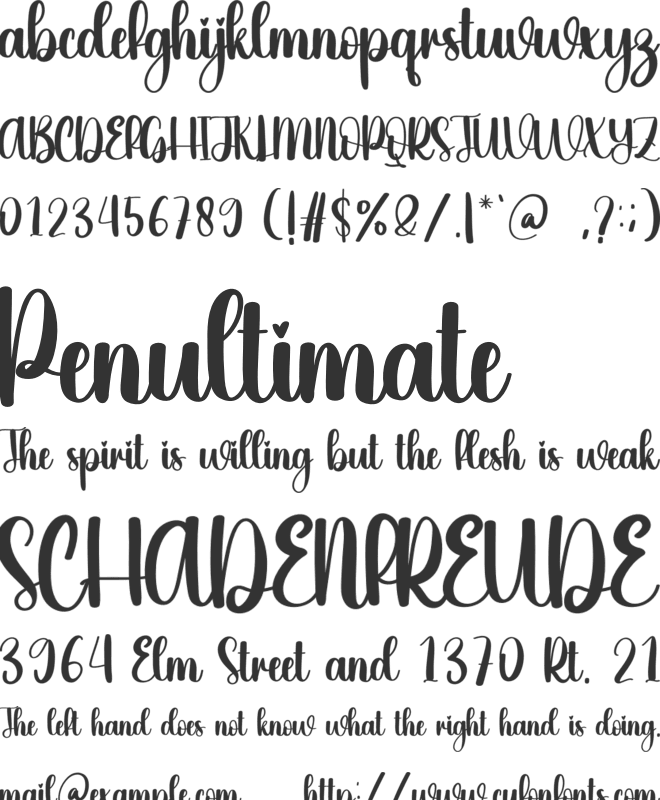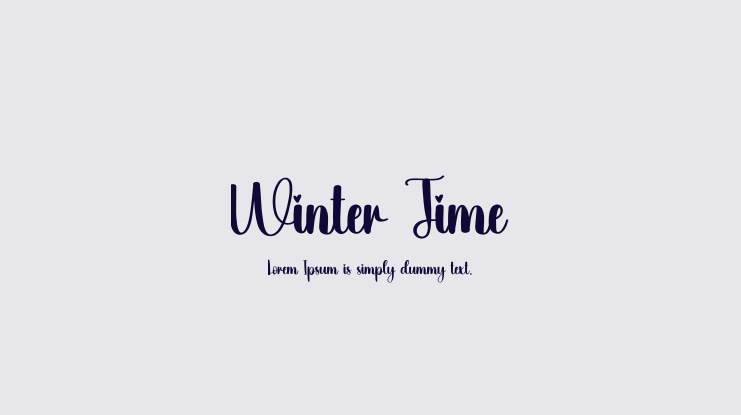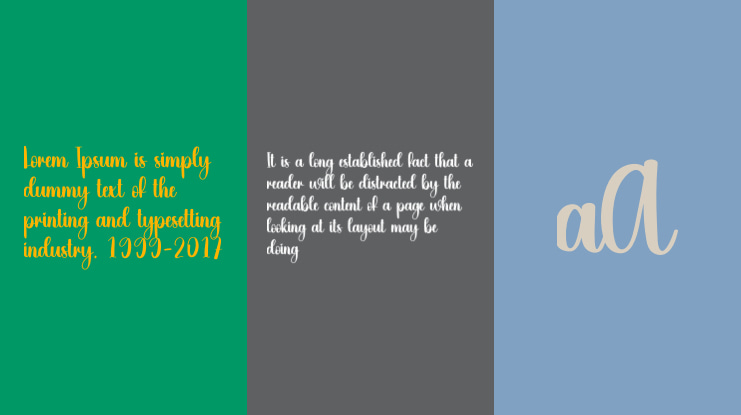
Our collection of stylish fonts is perfect for various applications such as wall displays, wedding invitations, social media logos, advertisements, product packaging, labels, photography, watermarks, invitations, stationery, and any project that requires elegant handwriting.